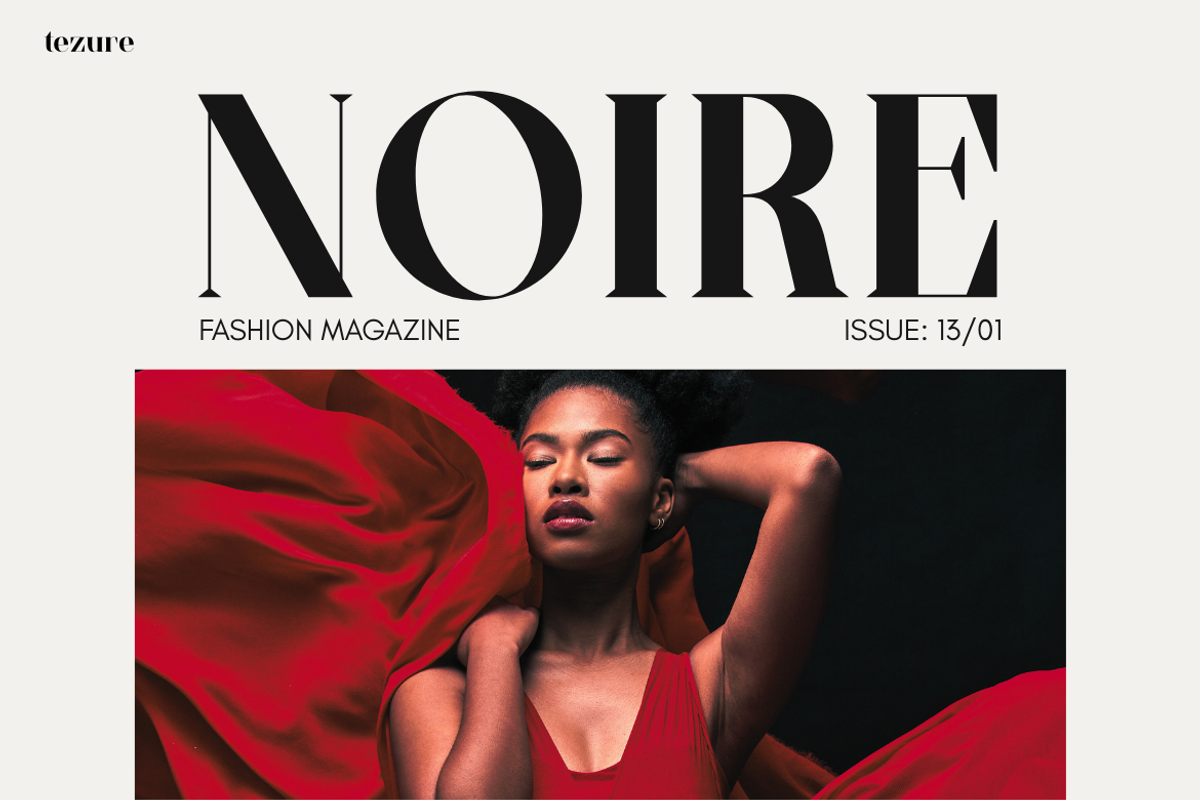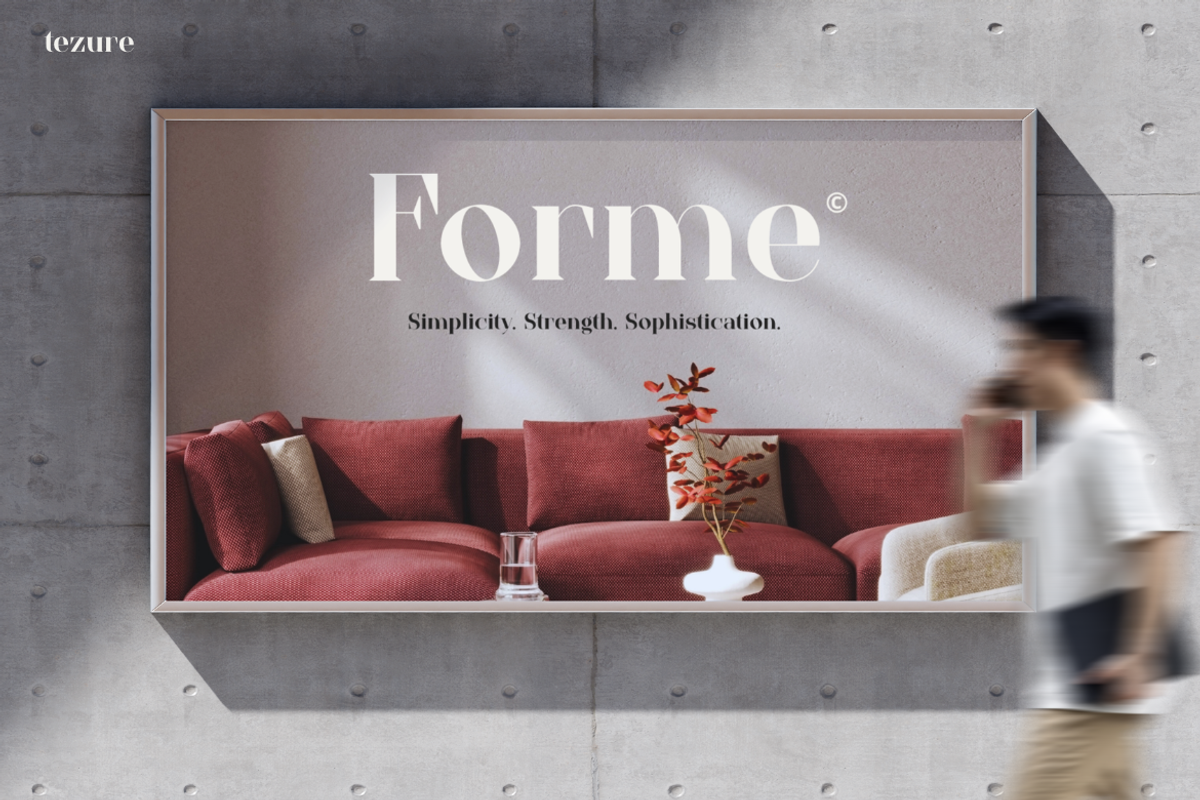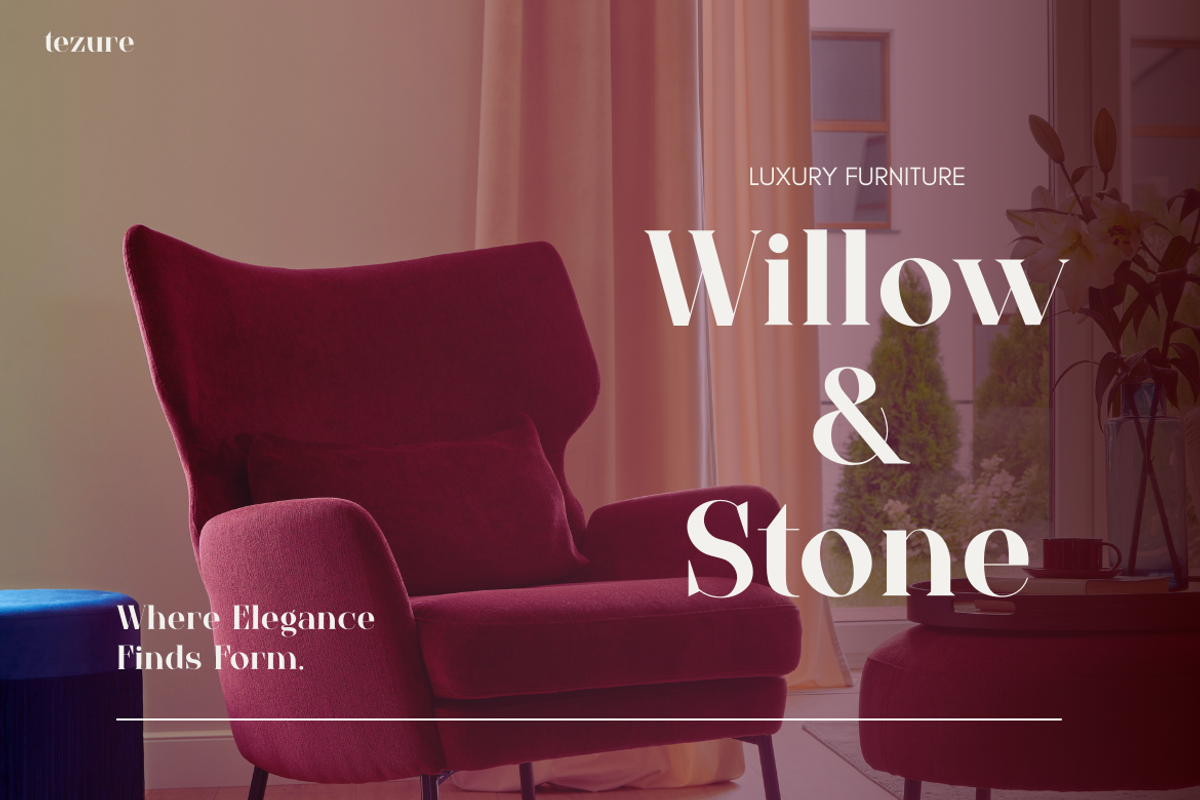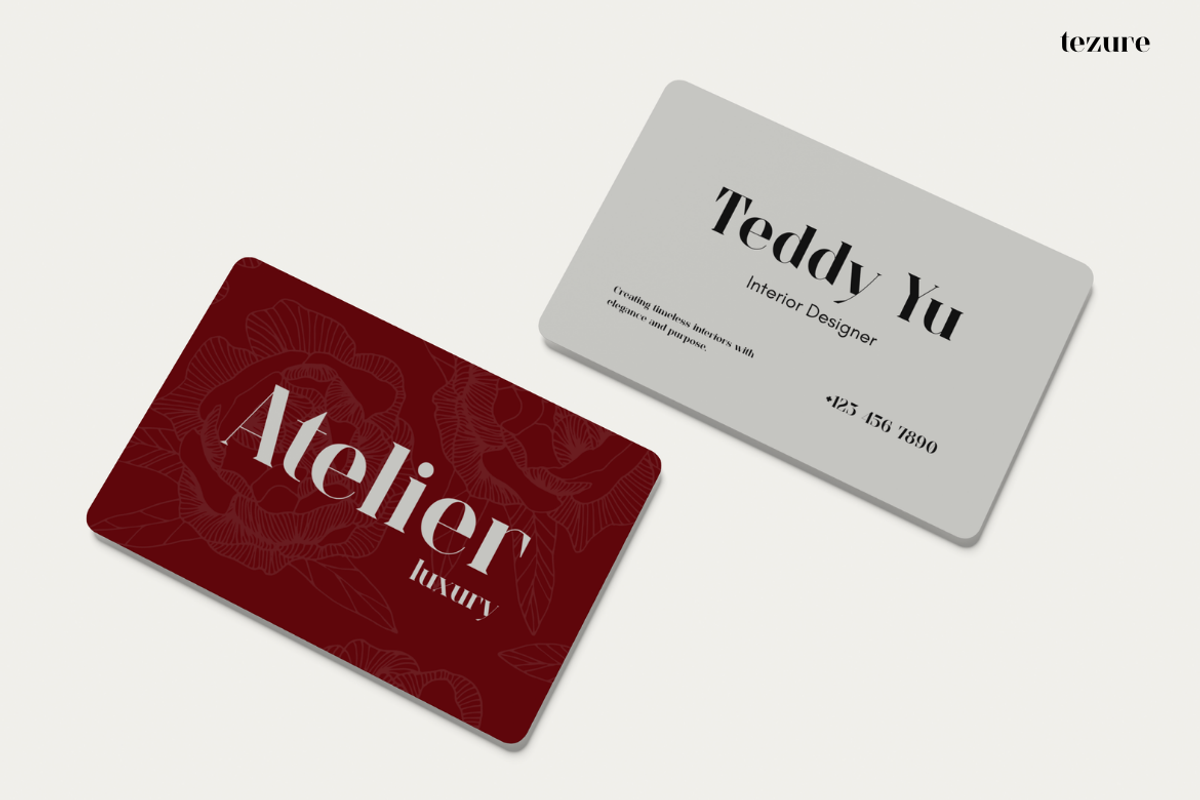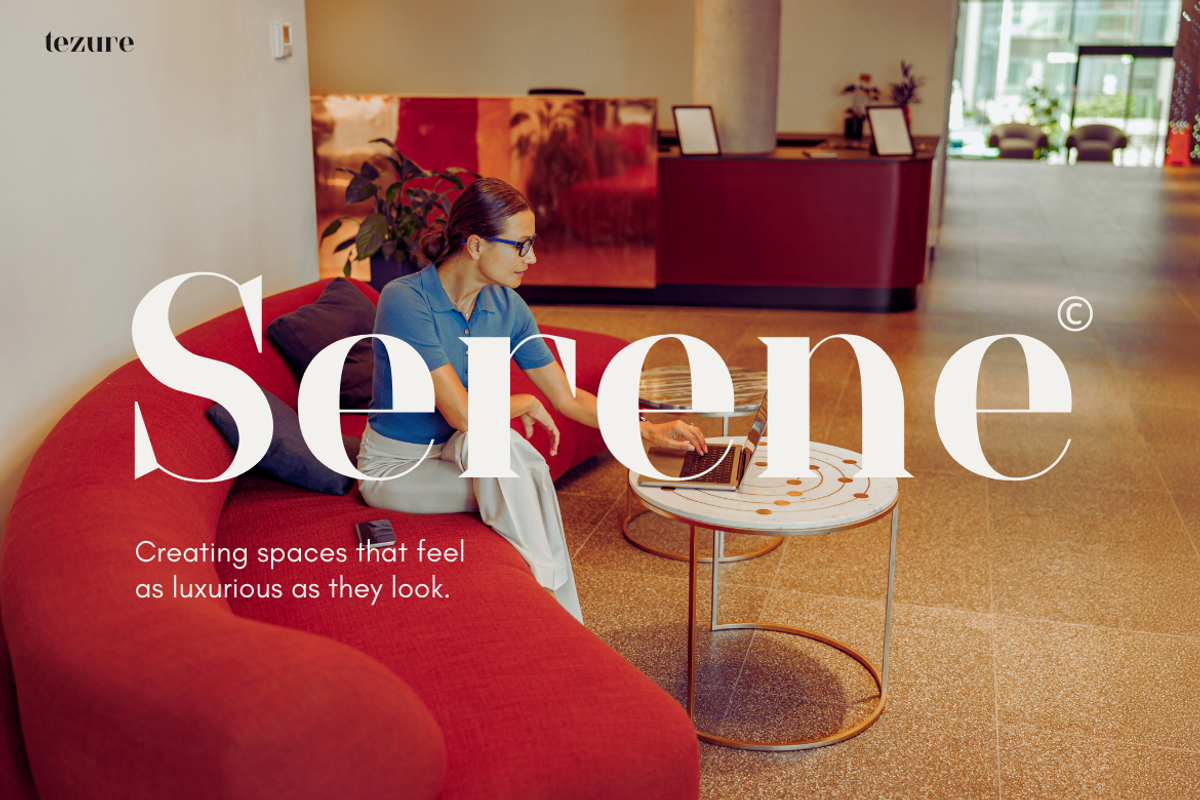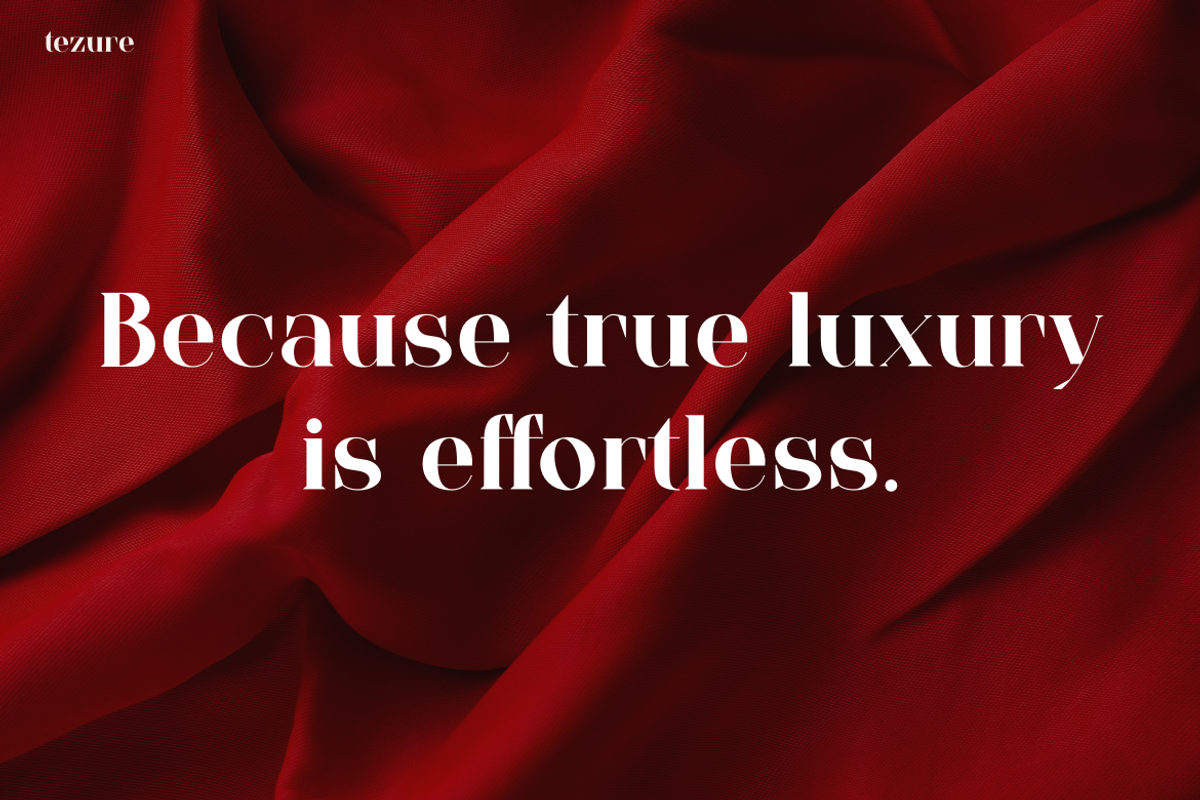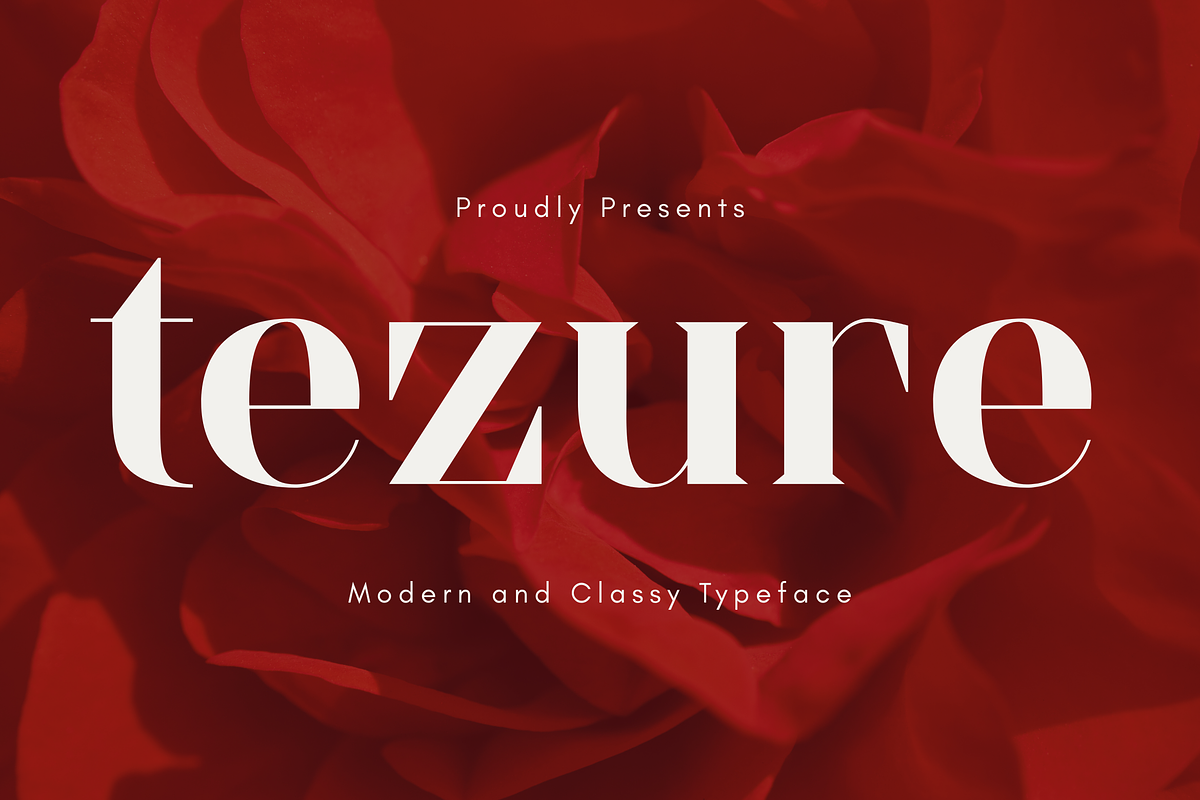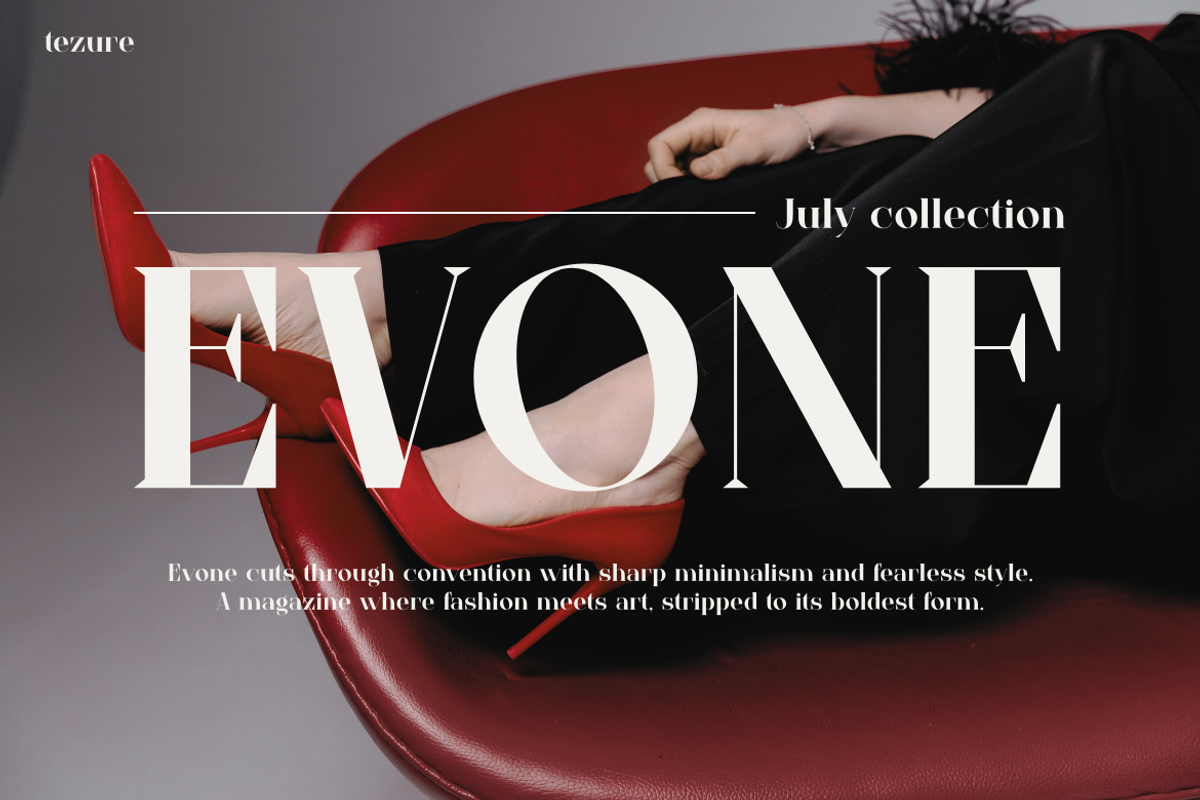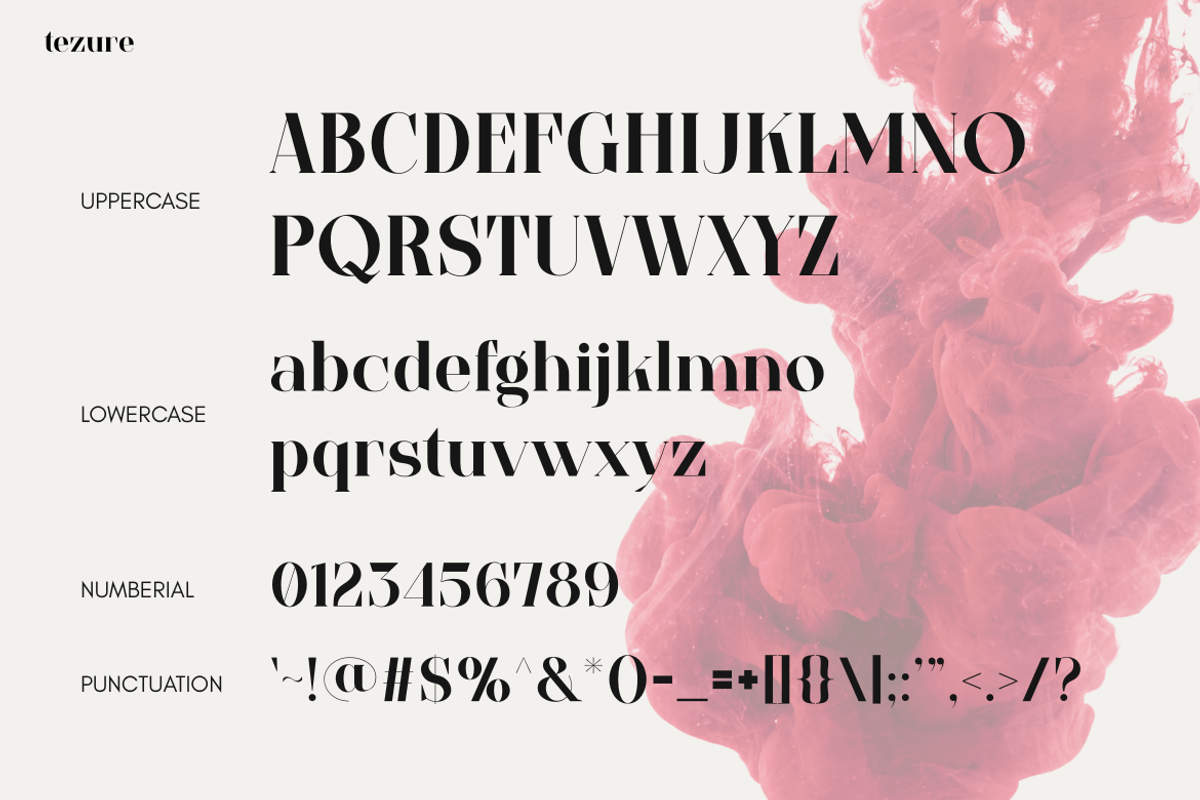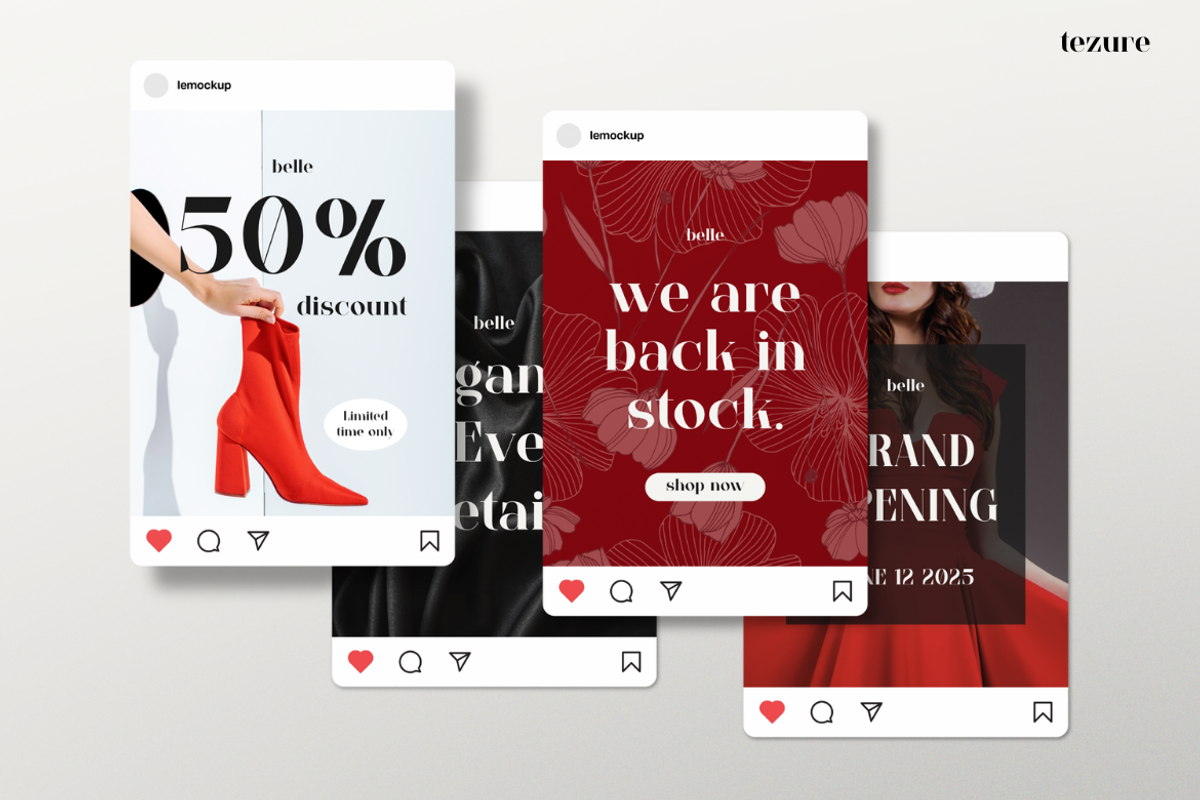
Tezure
Instagram Font Tezure is a modern serif typeface with a bold yet graceful style. It blends clean lines with elegant curves, creating a look that feels both timeless and fresh. This balance makes it perfect for luxury branding, while still being versatile enough for digital and print. Every letterform is designed to stand out, giving your projects a polished and professional touch.
Why This Font is Unique The charm of Instagram Font Tezure comes from its mix of strength and softness. The uppercase letters are bold and confident, while the lowercase letters flow with natural elegance. This contrast allows the font to work in both striking headlines and stylish body text. Its refined details carry a sense of creativity and confidence, making it ideal for brands that want to look modern yet sophisticated.
Another reason this font stands out is its flexibility. It can shift from fashion magazine covers to Instagram posts with ease. You can use it to create eye-catching product launches, classy invitations, or even minimal business cards. Wherever you place it, Tezure brings a sense of effortless luxury.